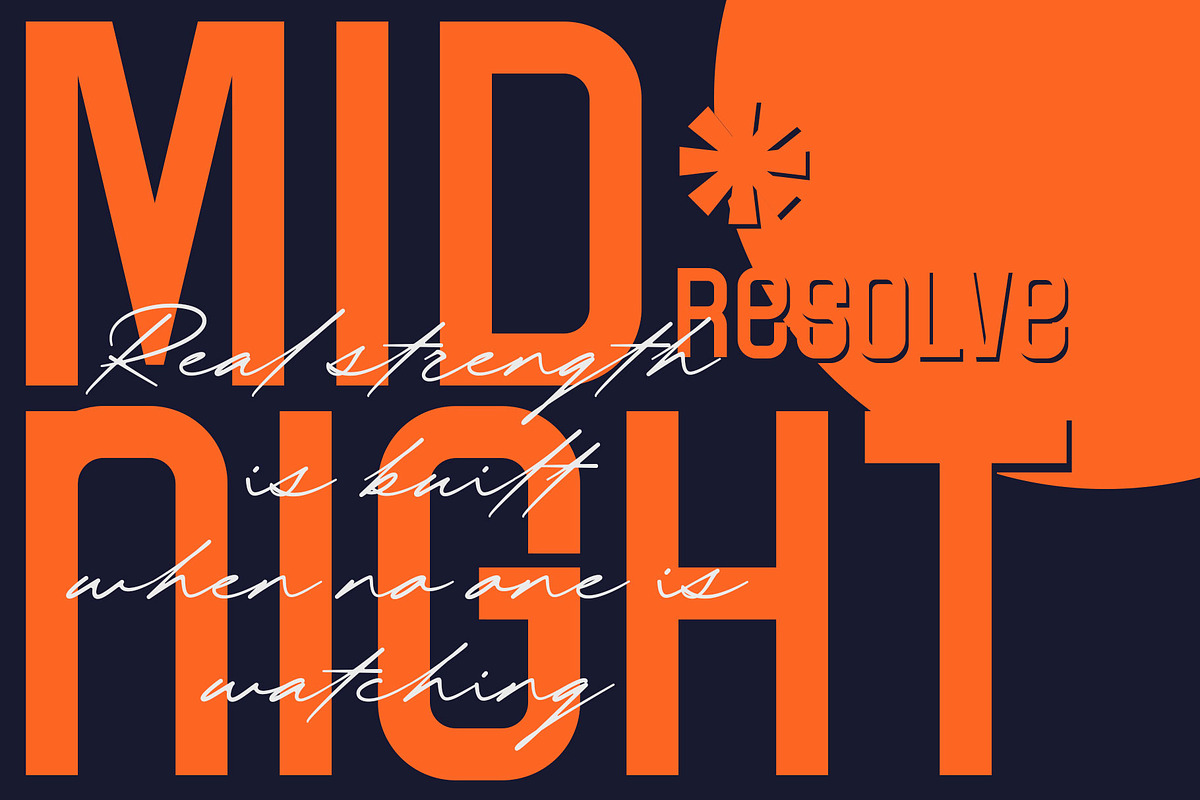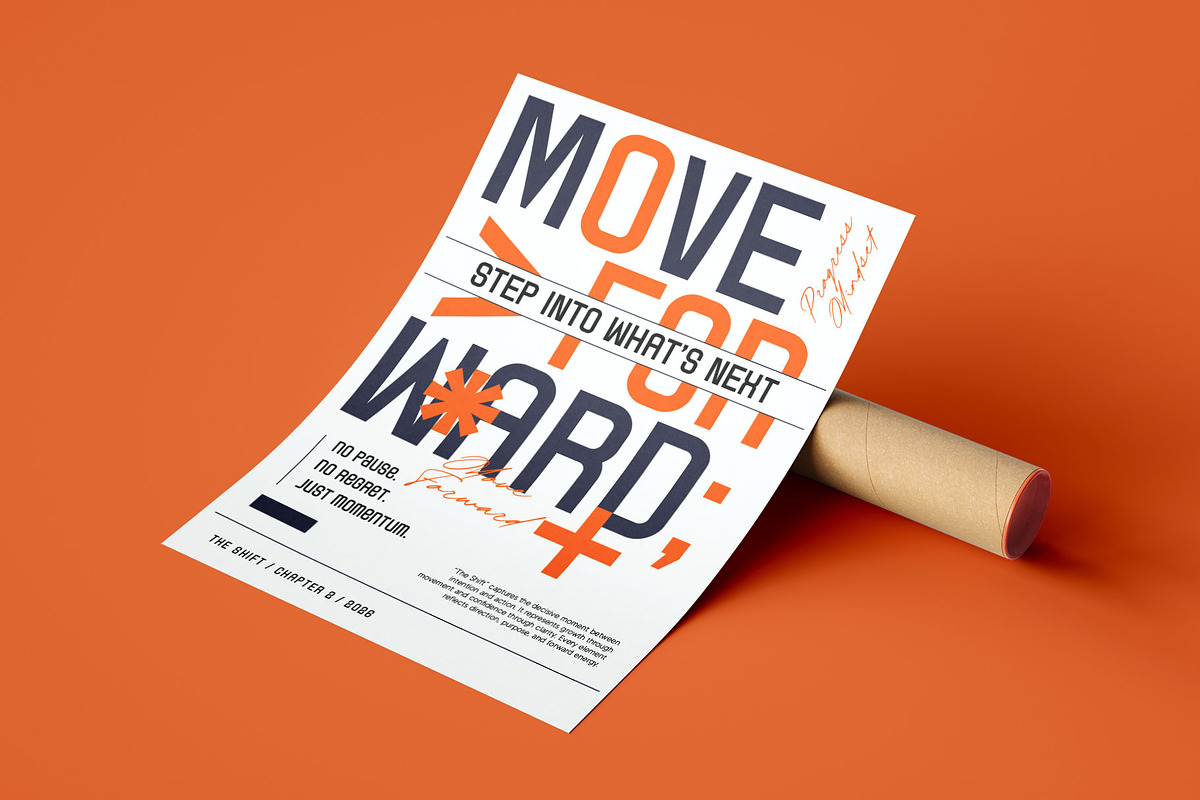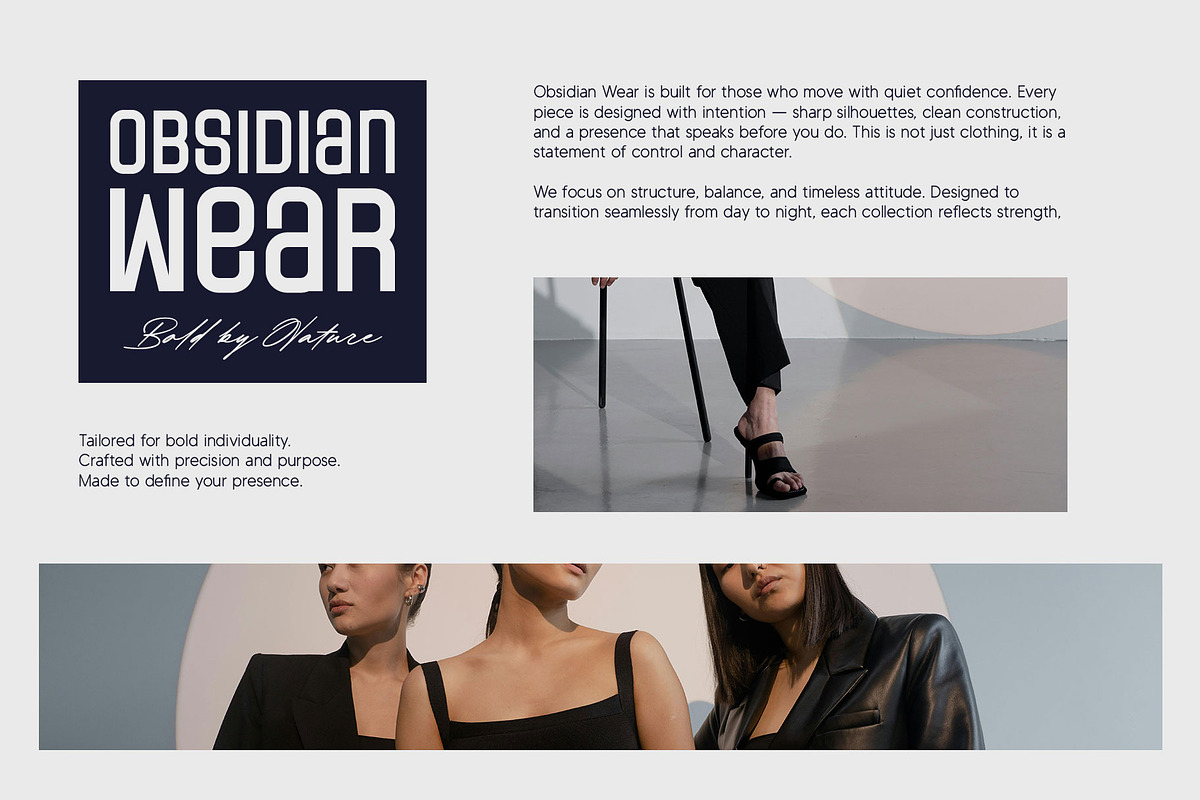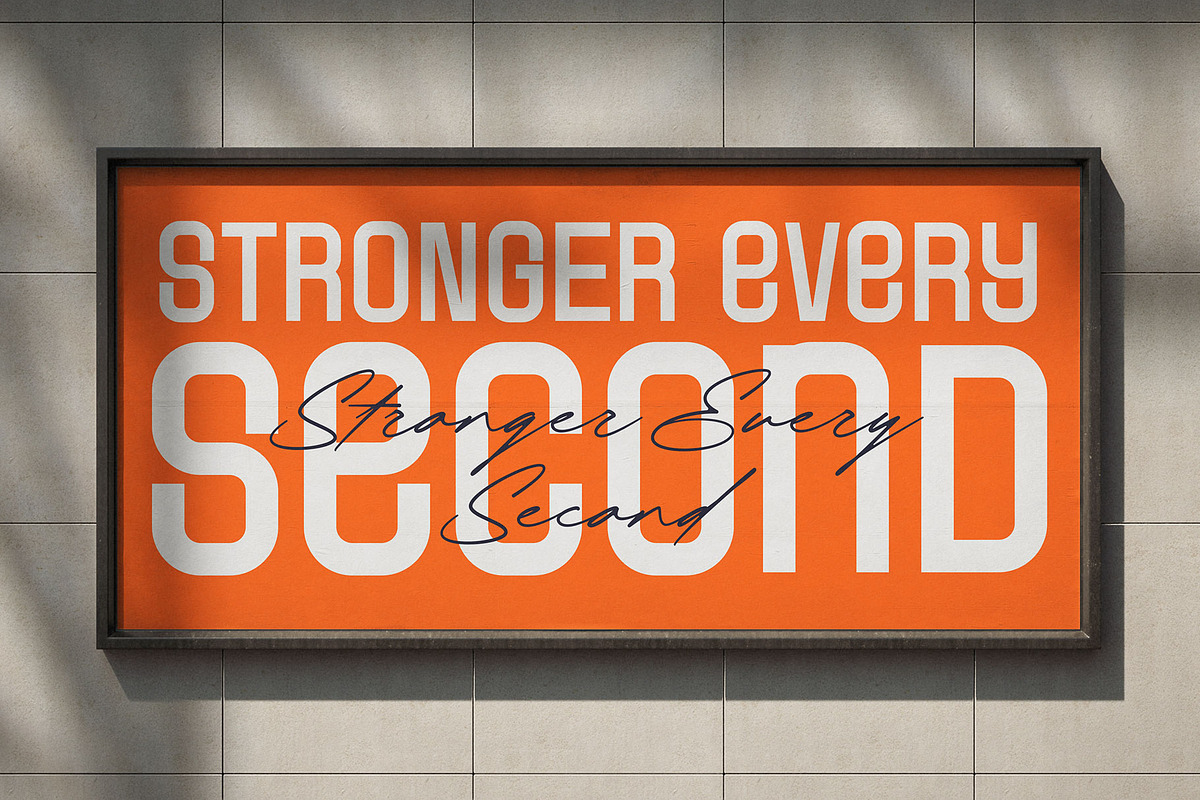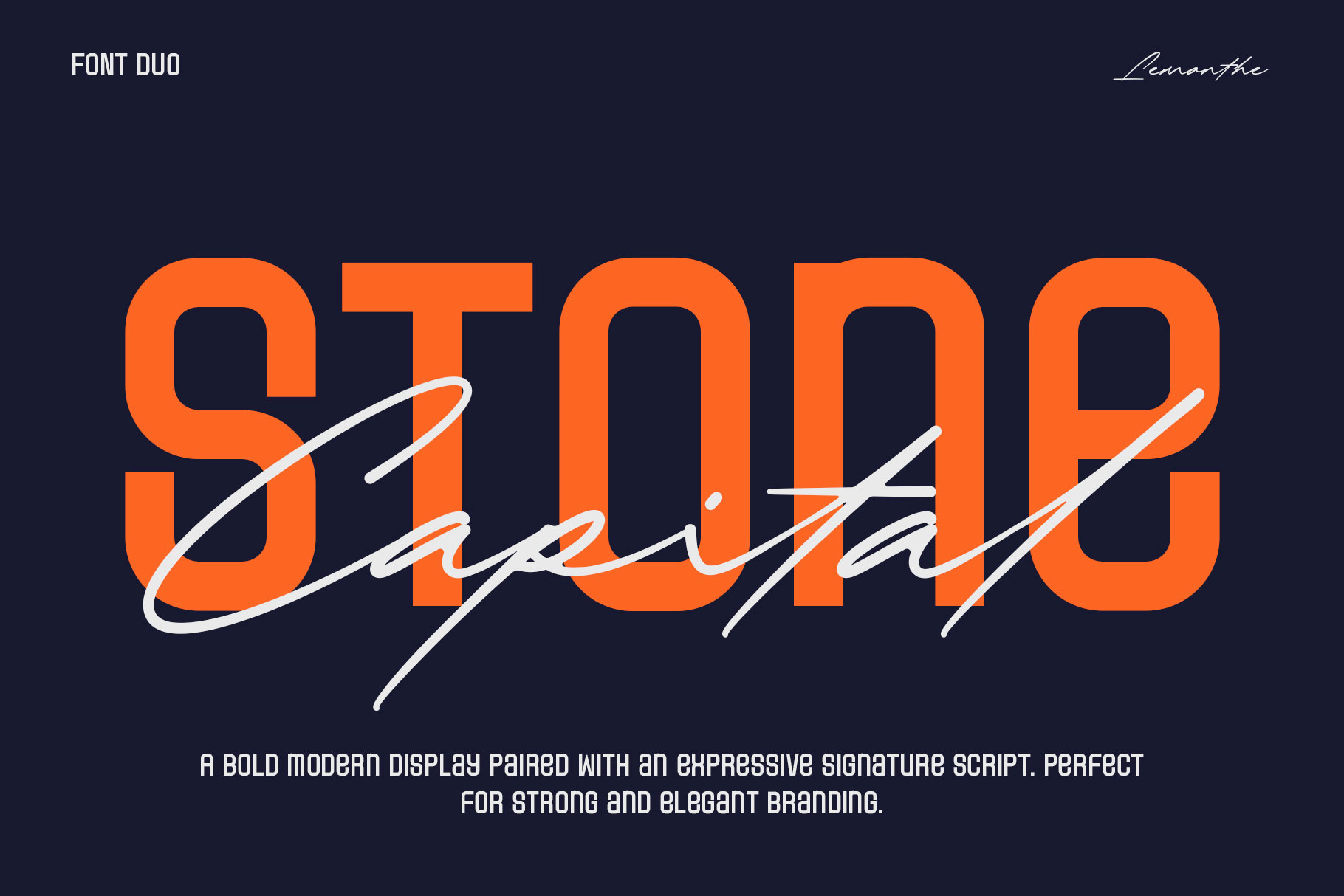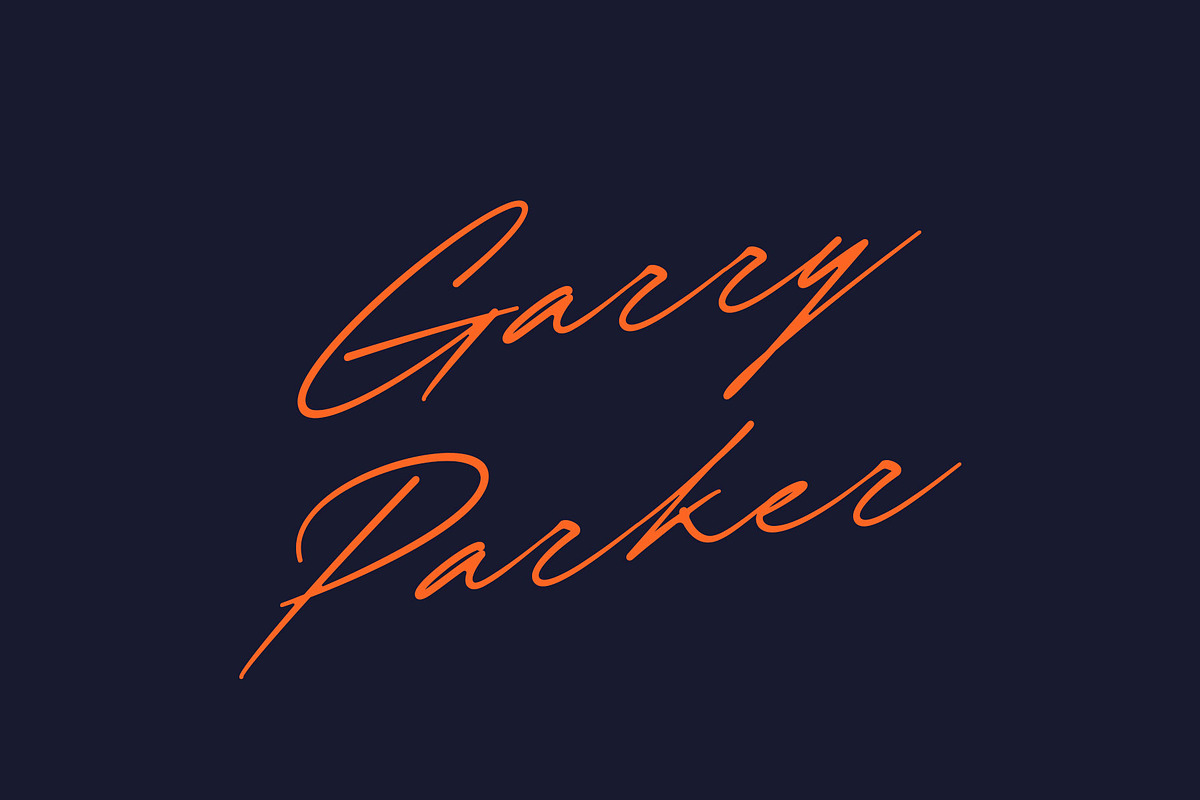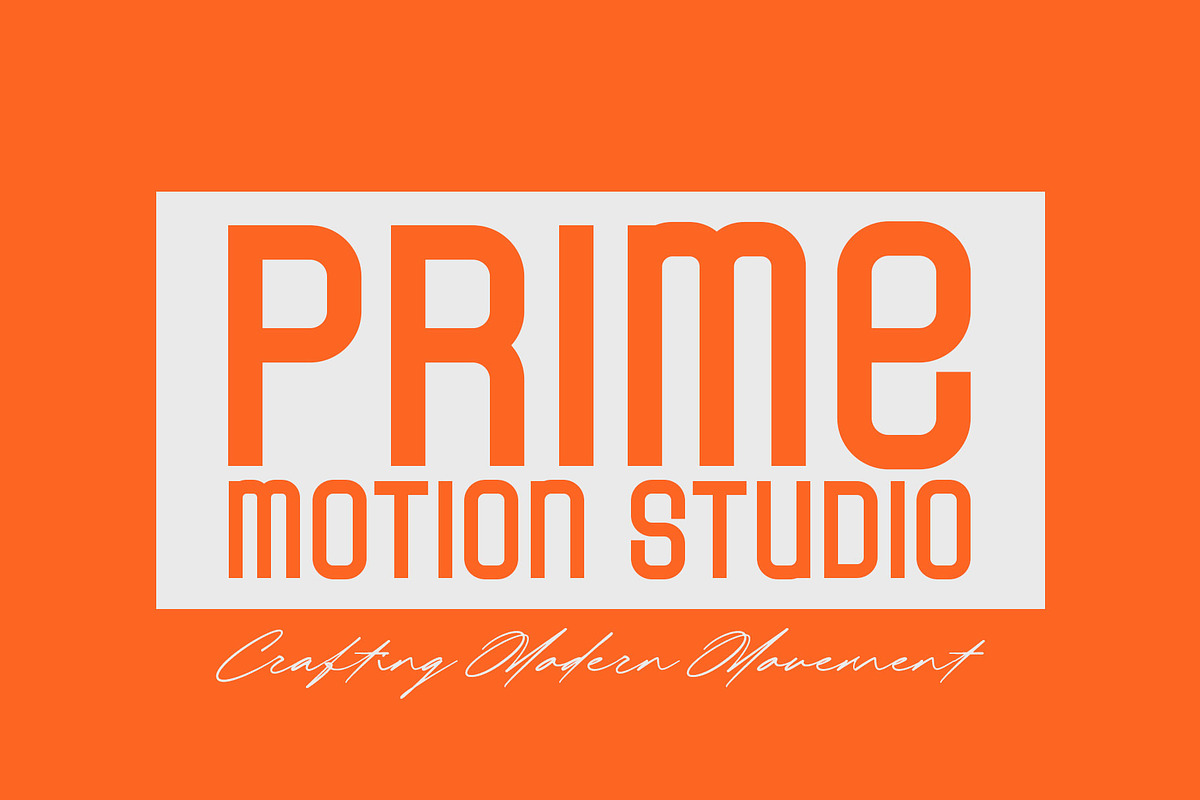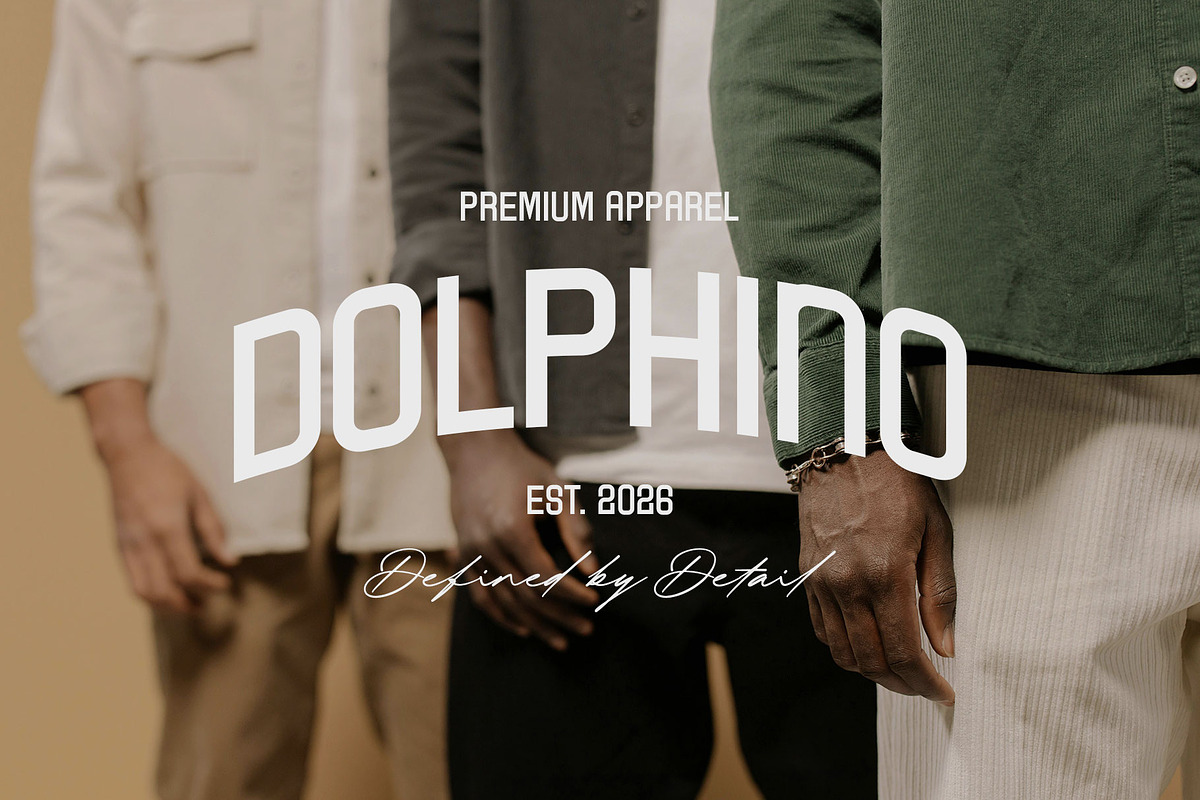
Stone Capital | Font Duo
Stone Capital is a font duo that pairs a modern display sans serif with a signature script in a balanced combination. It is designed to create clear visual contrast, combining a structured style with a more flowing touch, so layouts feel natural and easy to arrange.
This font is suitable for branding, logos, apparel design, posters, social media content, and editorial headlines. With a consistent and flexible character, Stone Capital works well for projects that aim for a modern and clean look.